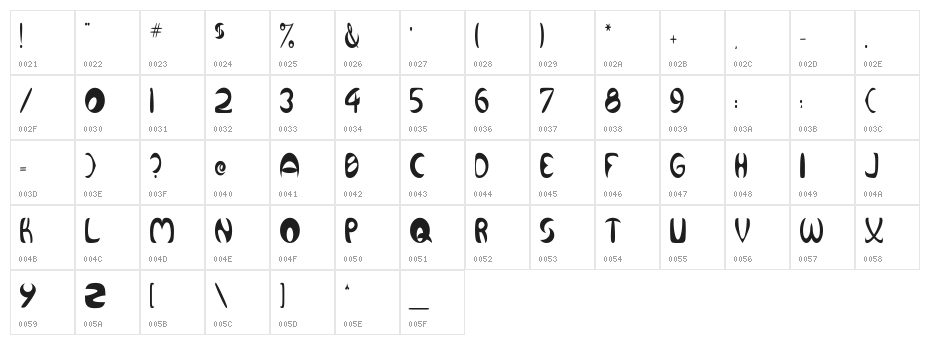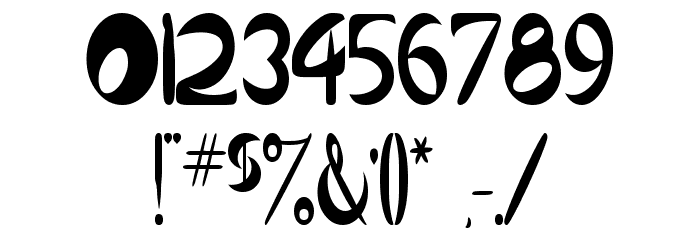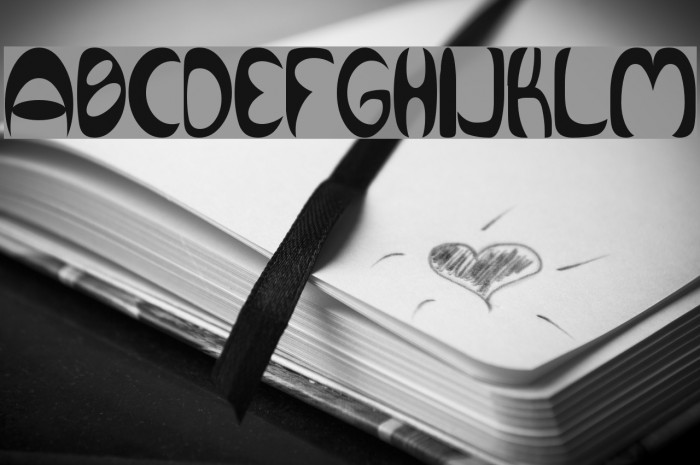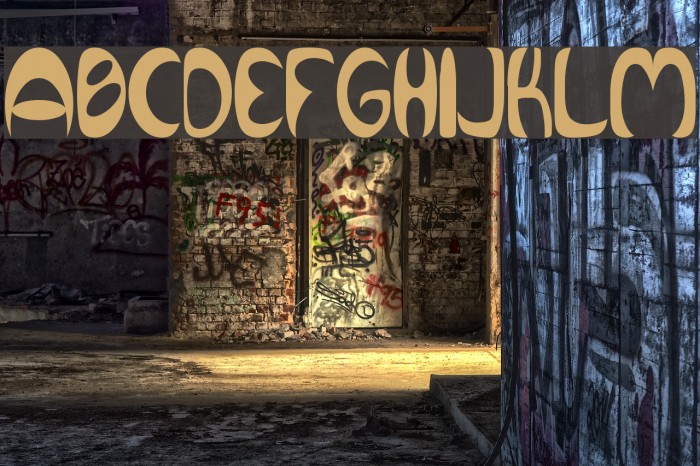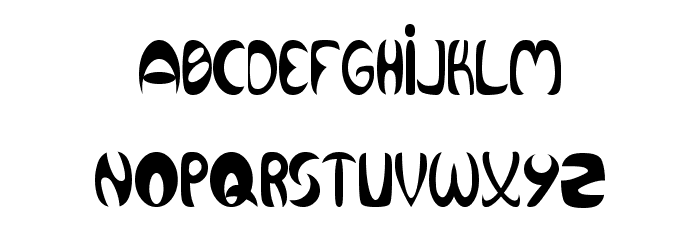
Qurve Thin Font
Qurve Thin Description
This font features a unique and playful design with exaggerated curves and rounded edges, giving it a bold and dynamic appearance. The characters are wide and have a distinct flow, making them stand out with a sense of movement and energy. The uppercase and lowercase letters maintain a consistent style, with the uppercase being more pronounced. Numbers and special characters are designed to match the overall aesthetic, ensuring uniformity across all elements. This font's artistic flair makes it suitable for creative and eye-catching designs.